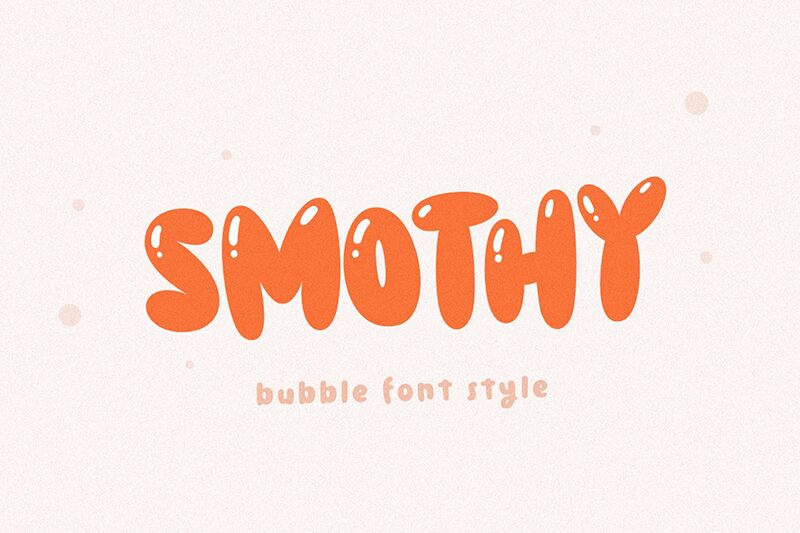
Smothy Bubble
Smothy Bubble font by HansCo is a cartoon display font with a youthful appeal and contemporary flair. It has round and bubbly characters that channel an uplifting tone into any design. Condensed and bold, this font is easily noticeable even from afar with every curve remaining as vivid as it was from up close.
Use Smothy Bubble in headers, subheadings, posters, banners, flyers, signage designs, invitations for kids’ events, scrapbook page headers and timetables. Other possible use cases are book/magazine covers, video commercial intros, sticker designs or packaging of products for children (for example candy bars). This free display font also works well on postcards.